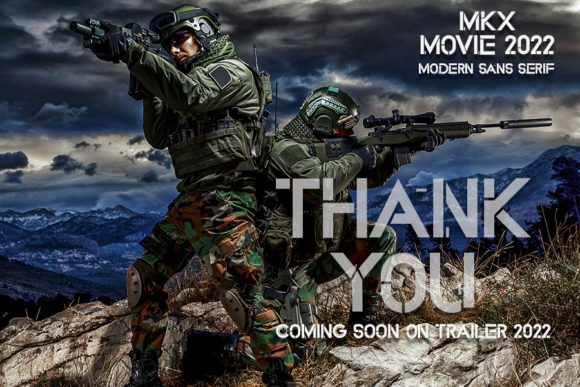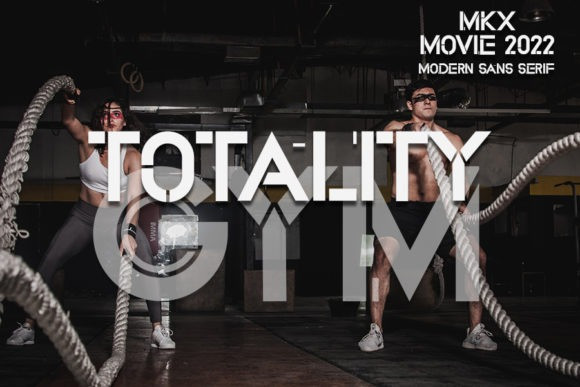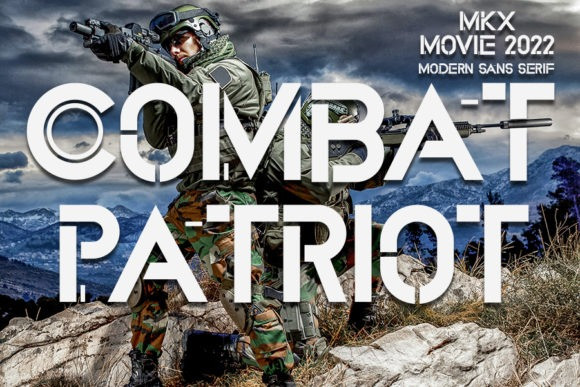
Combat Patriot Font
Combat Patriot Font is a futuristic and bold display font that will look stunning on any poster flyer or print.
Use this font for your designs and explore its endless possibilities.